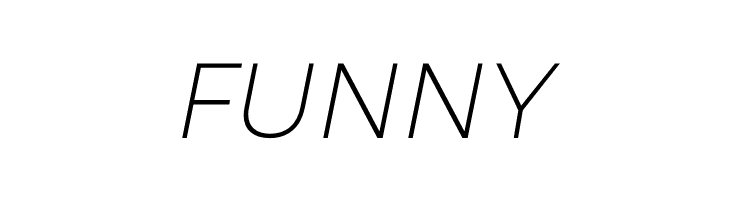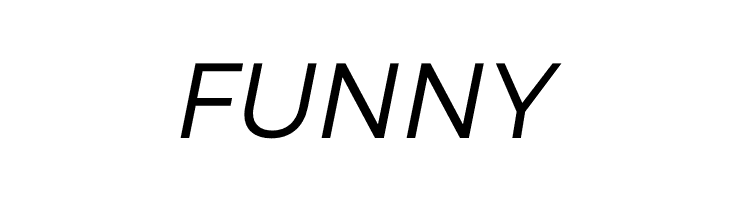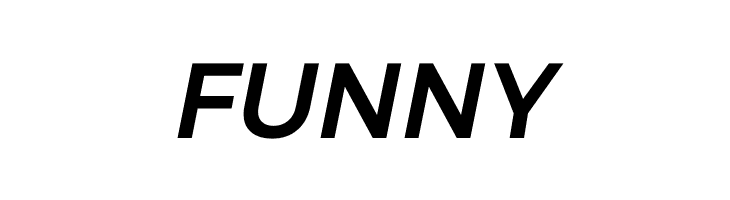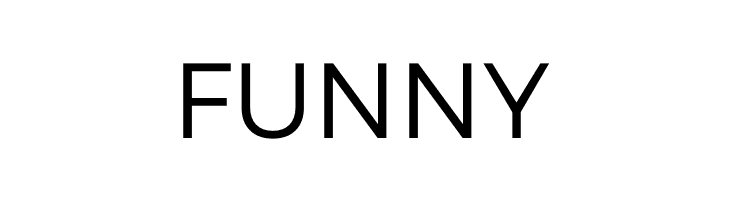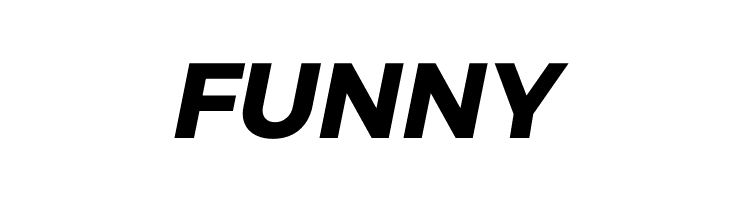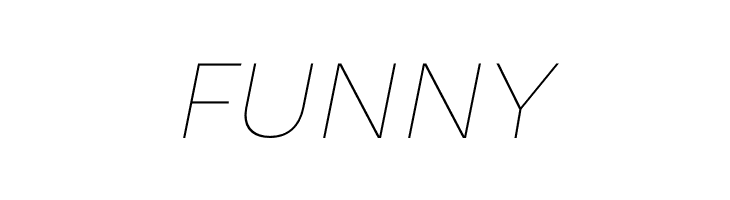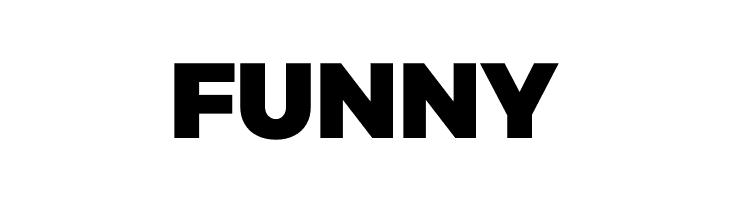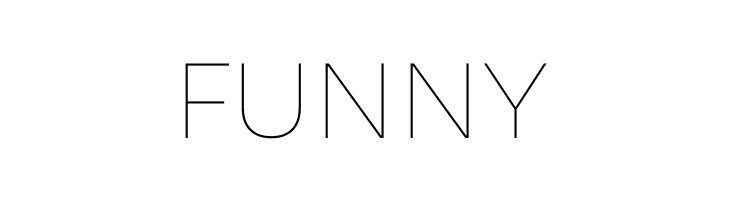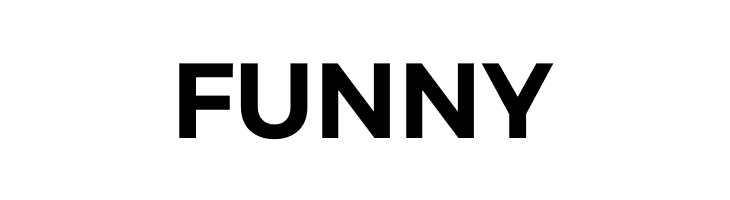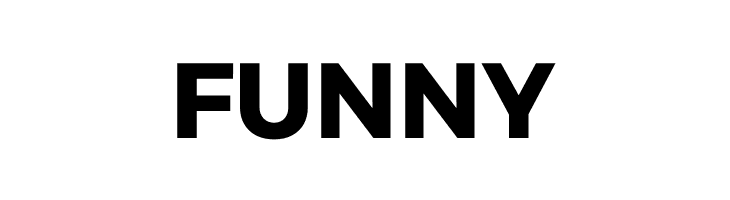
A bold, modern sans-serif font with clean, geometric lines.
A bold and italic font with a modern, dynamic style.
A bold, modern typeface with thick strokes and excellent legibility.
A bold, italic font with a modern and dynamic style.
A modern, extra-light sans-serif font with geometric shapes and smooth curves.
A sleek, modern italic font with a light weight and elegant style.
A modern, italic sans-serif font with clean lines and a dynamic style.
A clean, modern font with a minimalist and uniform design.
A sleek, modern, light italic font with smooth curves and balanced spacing.
A modern sans-serif font with clean lines and balanced proportions.
A modern, italic sans-serif font with medium weight and normal spacing.
A modern, semi-bold sans-serif font with clean lines and balanced proportions.
A modern, semi-bold italic font with medium contrast and a sleek design.
A sleek, modern font with thin lines and balanced spacing.
A sleek, thin, and italicized font with a modern and minimalist design.
A bold, modern sans-serif font with strong geometric shapes.
A bold, modern sans-serif font with strong, uniform strokes and excellent legibility.
A bold, italic, modern sans-serif font with a clean and dynamic style.
A bold, modern sans-serif font with thick strokes and strong presence.
A clean, modern sans-serif typeface with uniform stroke widths and balanced design.